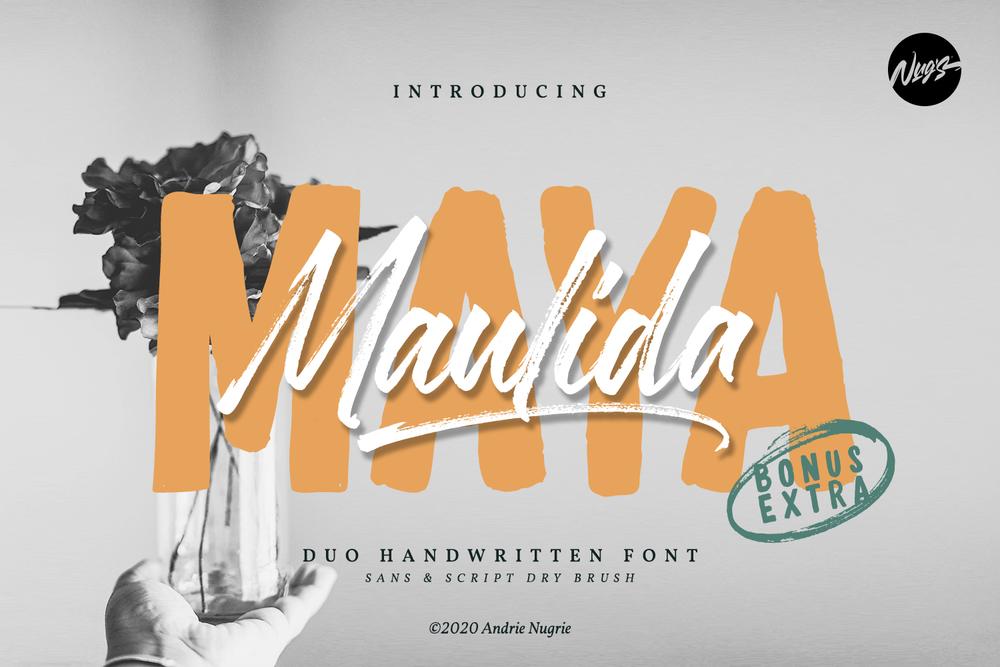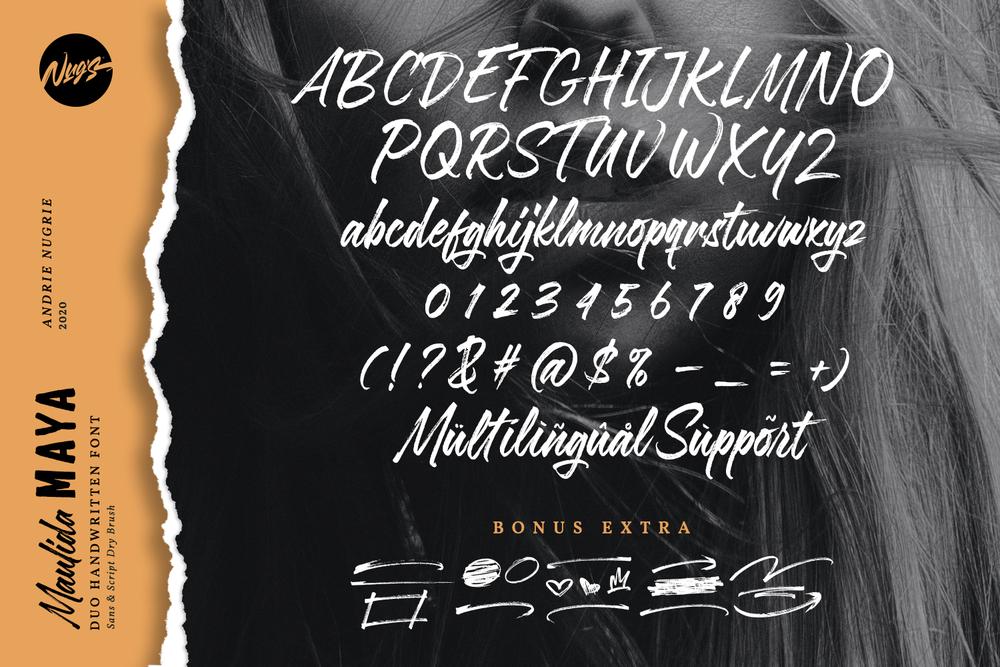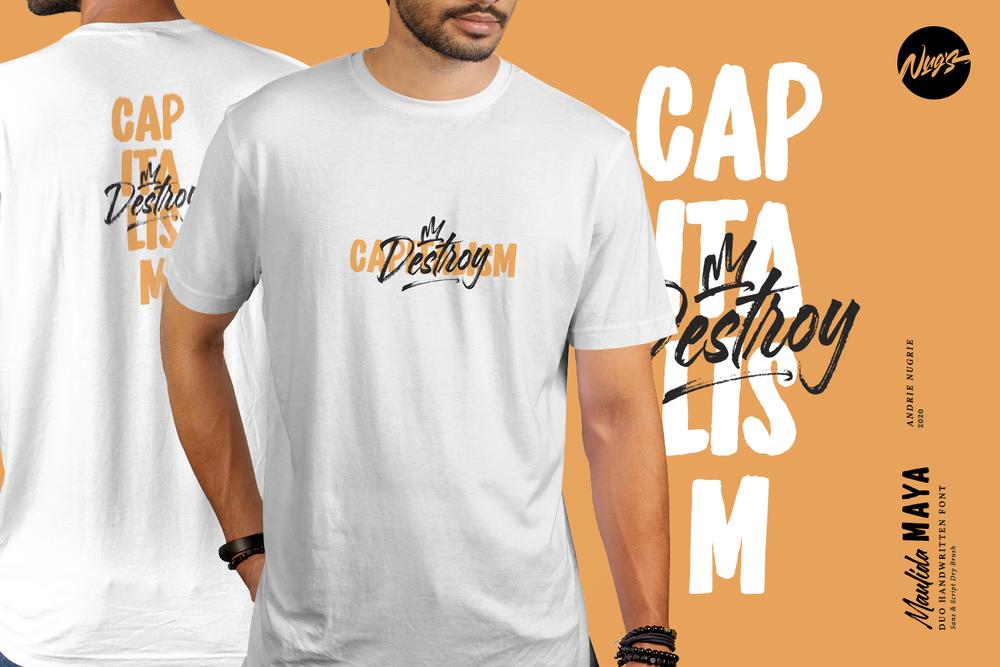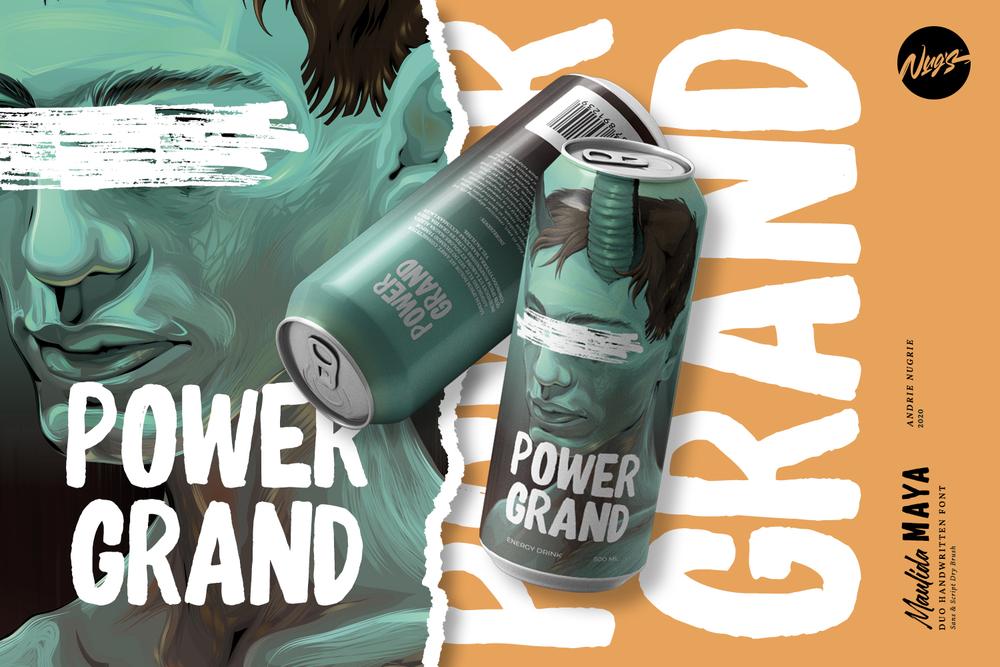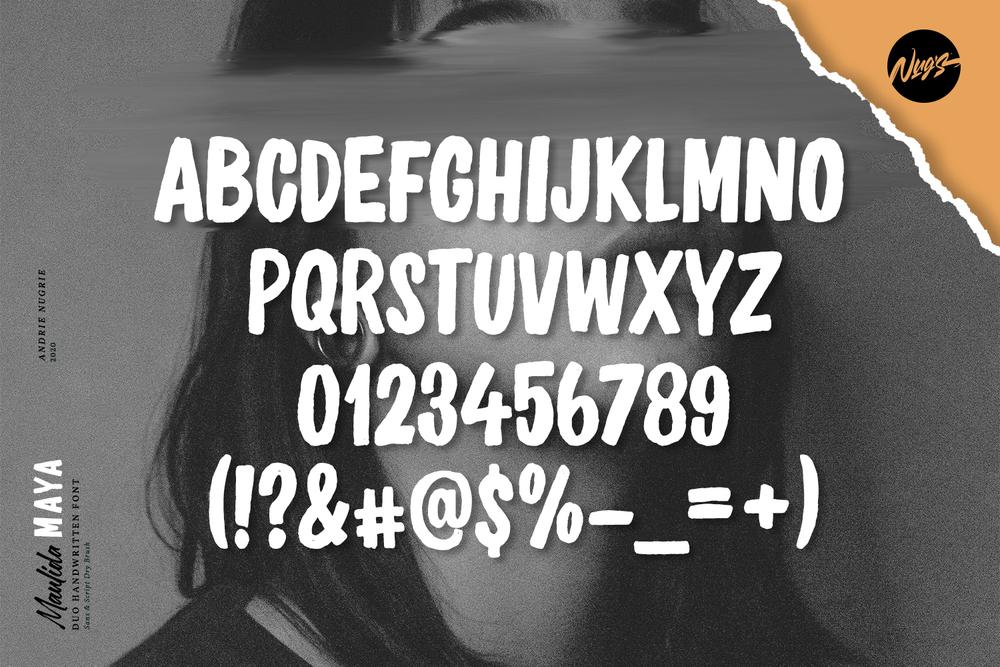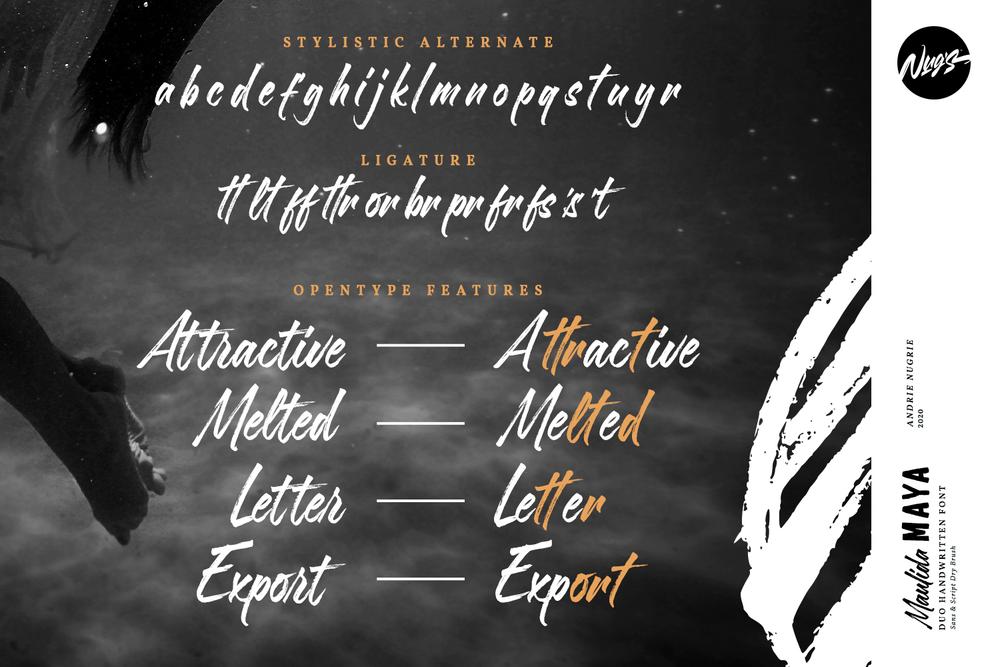
Maulida Maya Duo Font
Introducing Maulida MAYA With beautiful natural dry brush strokes, This font perfect for signature, branding, wedding, fashion, photography title, poster, social media, ad banner, book cover, packaging, handwritten quotes, greeting cards, and advertising. All fonts containing upper & lowercase characters, numerals, punctuation with otf and ttf format sans and script handwritten font ▬▬▬▬▬▬▬▬▬▬▬▬▬▬▬▬▬▬▬▬▬▬▬▬▬▬▬▬▬▬ Files Include : ✦ Maulida Maya ✦ Maulida Maya Sans ✦ EXTRA Eps & Pdf ✦ Web Font